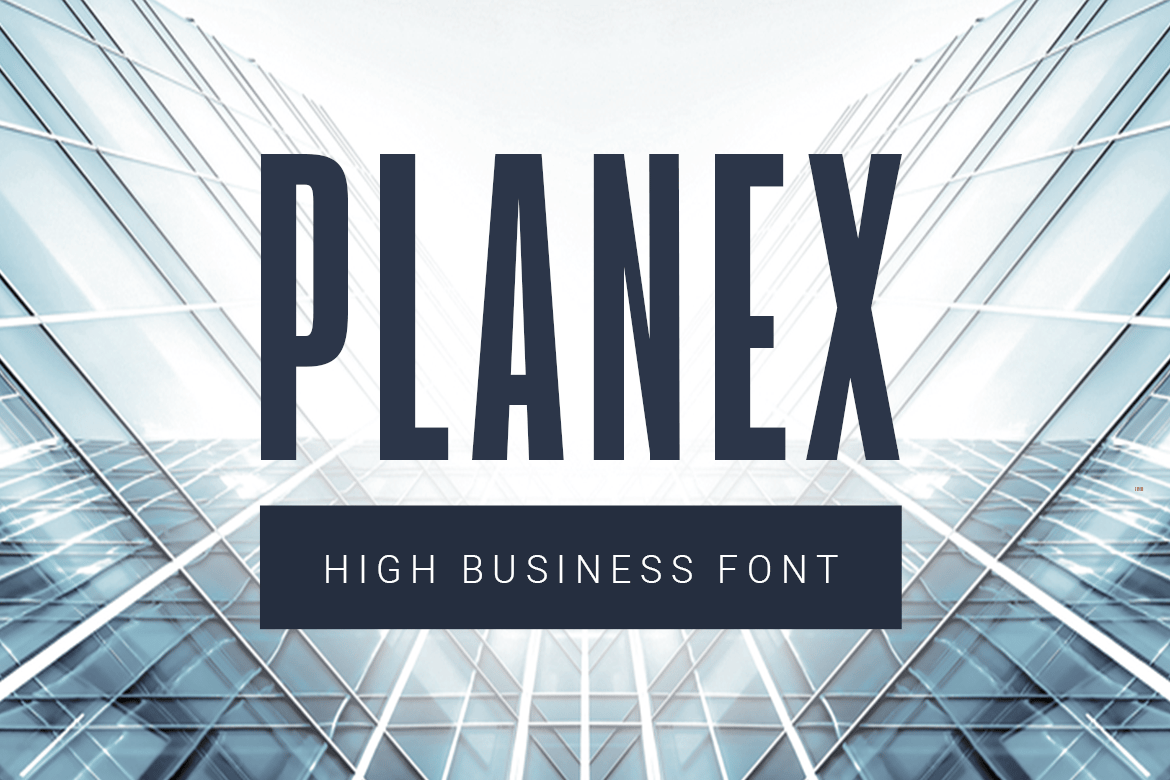
Planex High Business Font
Please note that Planex High Business Font must be purchased for commercial use. You are welcome to download and test this font for personal and non-commercial projects at no cost. This powerful, high-lettered sans serif typeface is perfectly suited for a wide range of professional and corporate design applications, including executive branding, clean and modern logo creation, sleek website headers, short display titles, minimalist business cards, and any project that requires a strong, stylish, and highly legible visual statement with a sophisticated vertical presence.
The reason Planex High Business Font is genuinely exciting is its commanding and modern vertical structure—the "high letters" design—which gives it an instantly authoritative and elegant presence. It combines simplicity with high style, making it a favorite for brands that want to convey professionalism, clarity, and forward-thinking innovation. Its clean lines and minimalistic aesthetic ensure readability even in bold, display-size usage, making it an ideal choice for both print media and digital interfaces where impact and legibility are key.
The Planex High Business Font family typically consists of a strong Regular weight that is optimized for display and branding use. While often focused on its primary style, high-quality business fonts like Planex sometimes offer additional weights (e.g., Light or Bold) and italic versions to provide complete typographic control for different visual hierarchy needs. For a strong, clean, and highly professional typeface, secure your Planex High Business Font Free Download today.